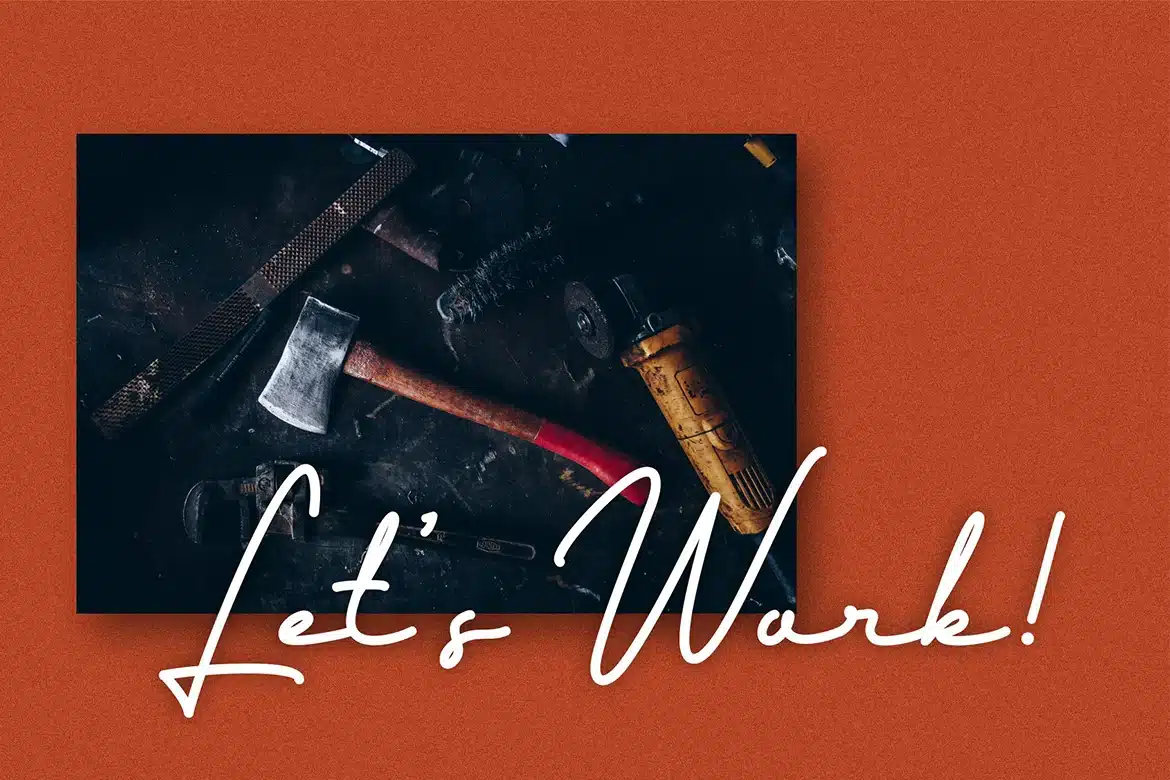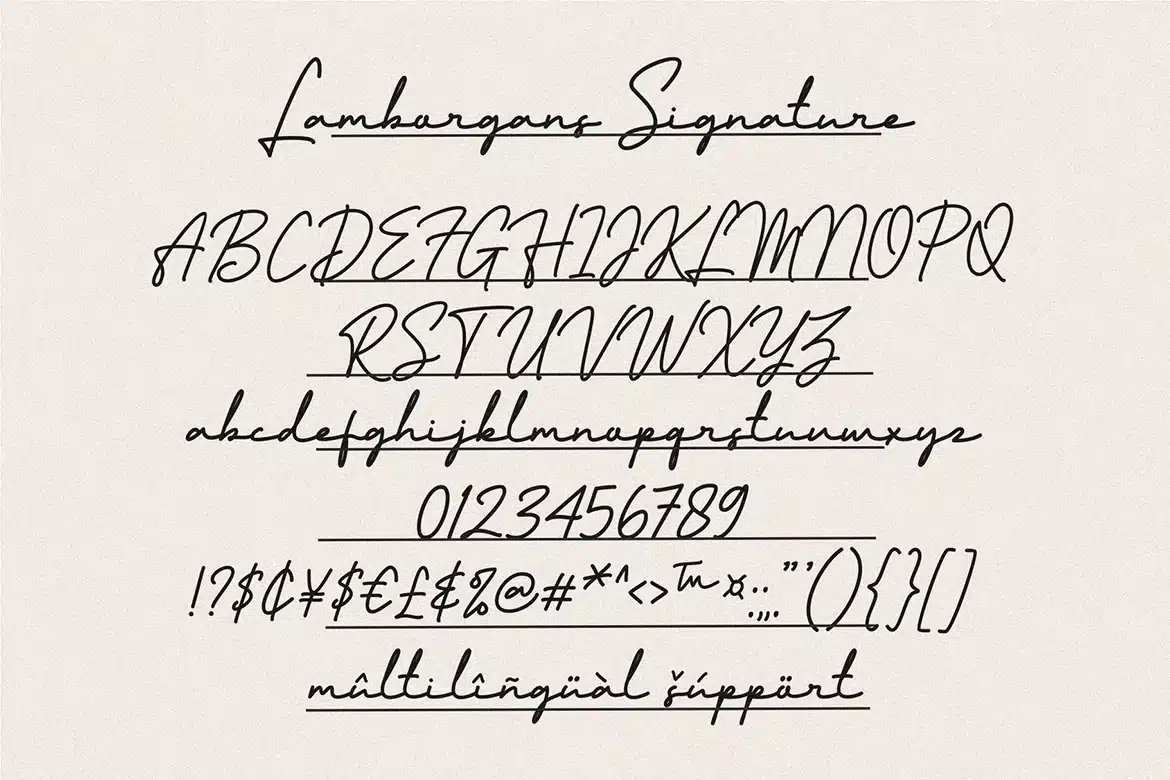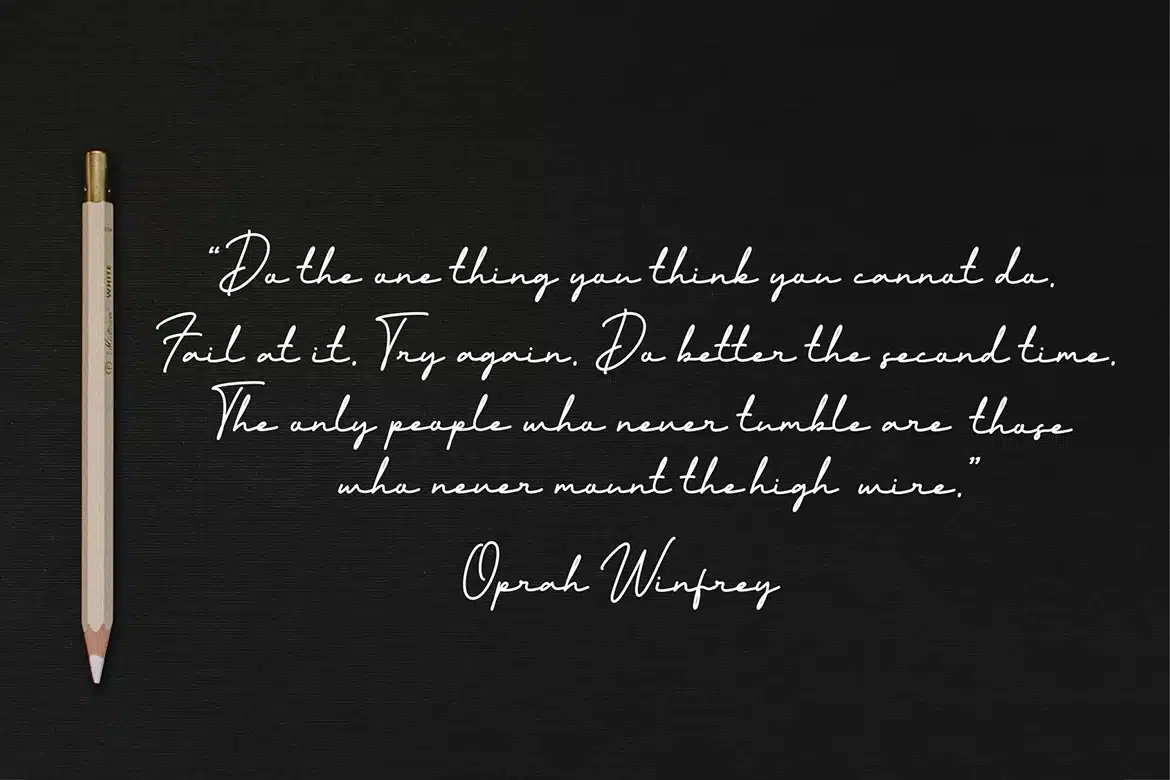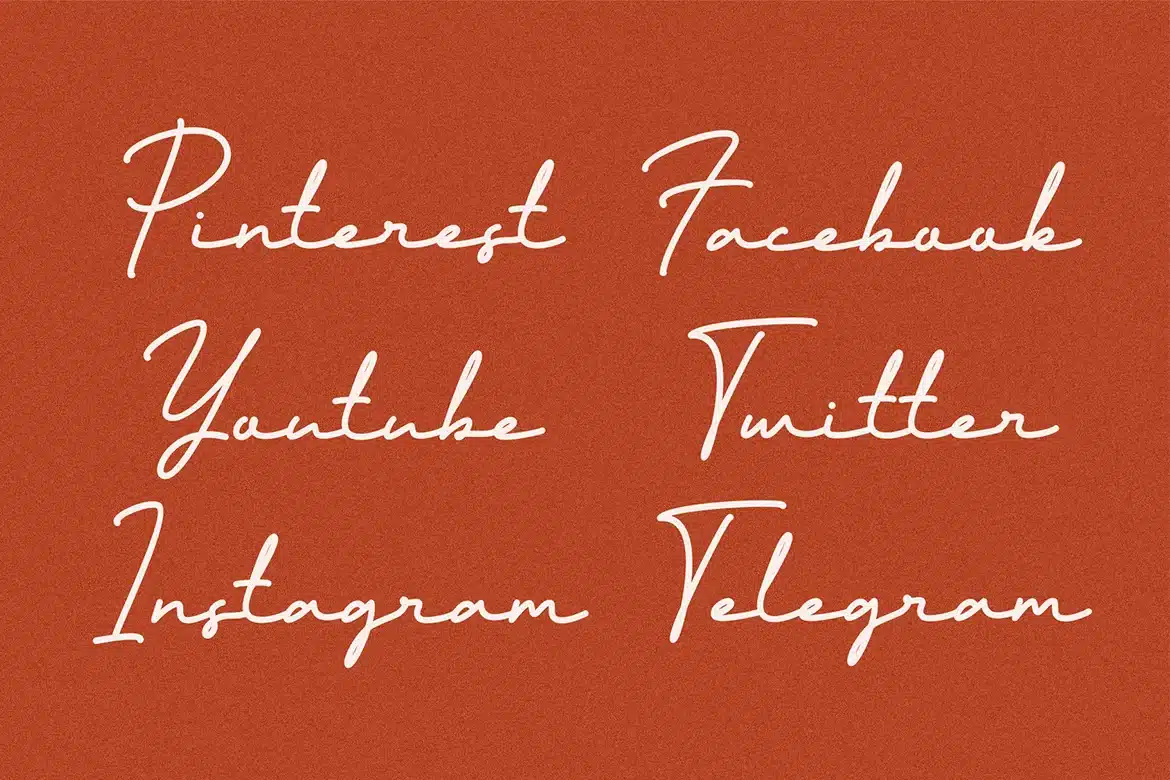
Lamborgans Signature Font
Lamborgans is a Modern Signature font, the font looks slightly lower in a constant direction. Like making a quick signature, it has a elegant, classy look and beauty.
Lamborgans is great for wedding invitation card designs, logotypes, business card designs, advertisements, product designs, stationery, product packaging, quotes and so on.